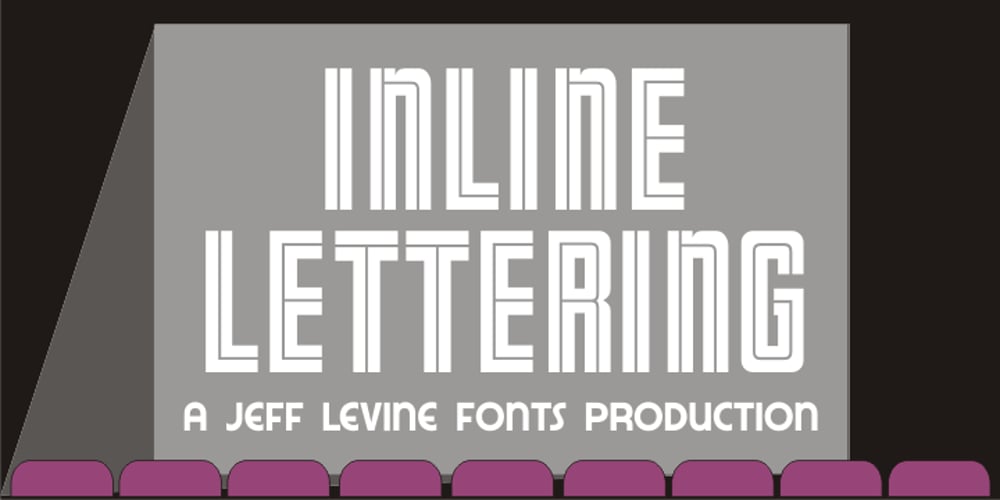
Inline Lettering JNL Font Family was designed by Jeff Levine and published by Jeff Levine. Inline Lettering JNL contains 1 styles and family package options. Inline Lettering JNL was directly inspired by the opening title of a classic 1940s horror film, “The Invisible Man’s Revenge”.